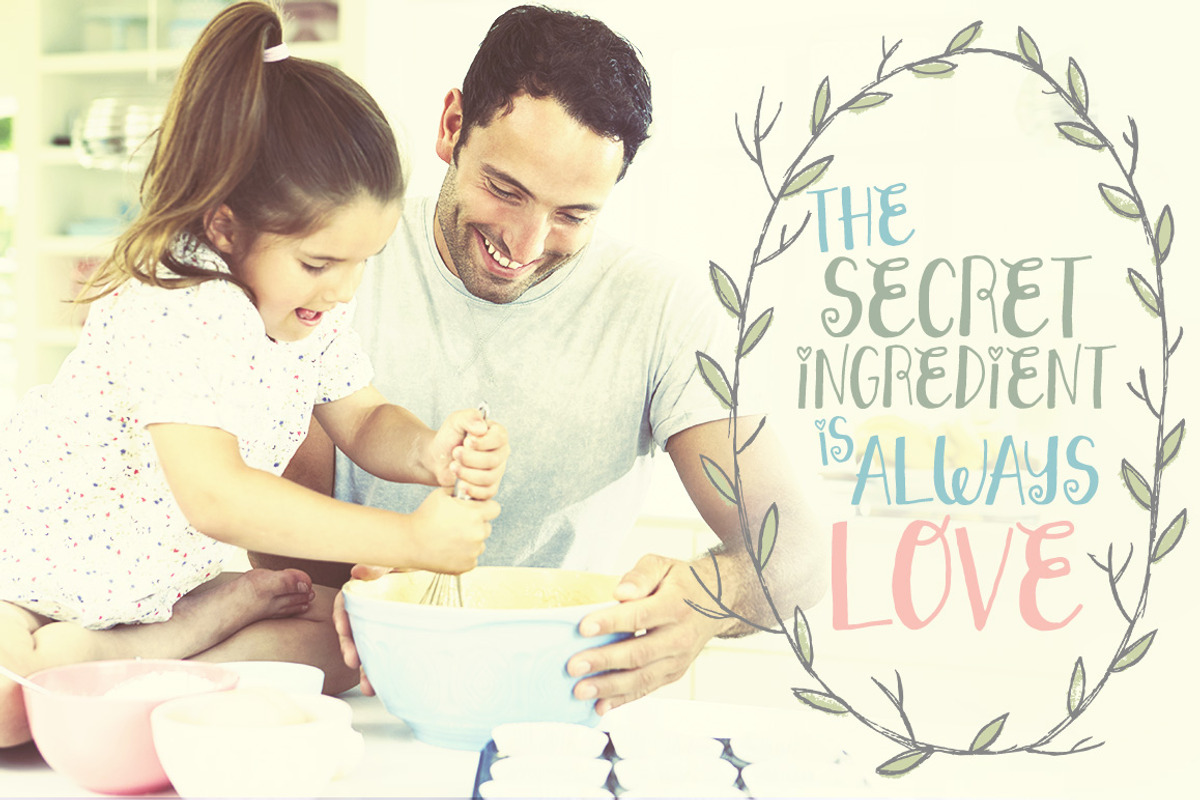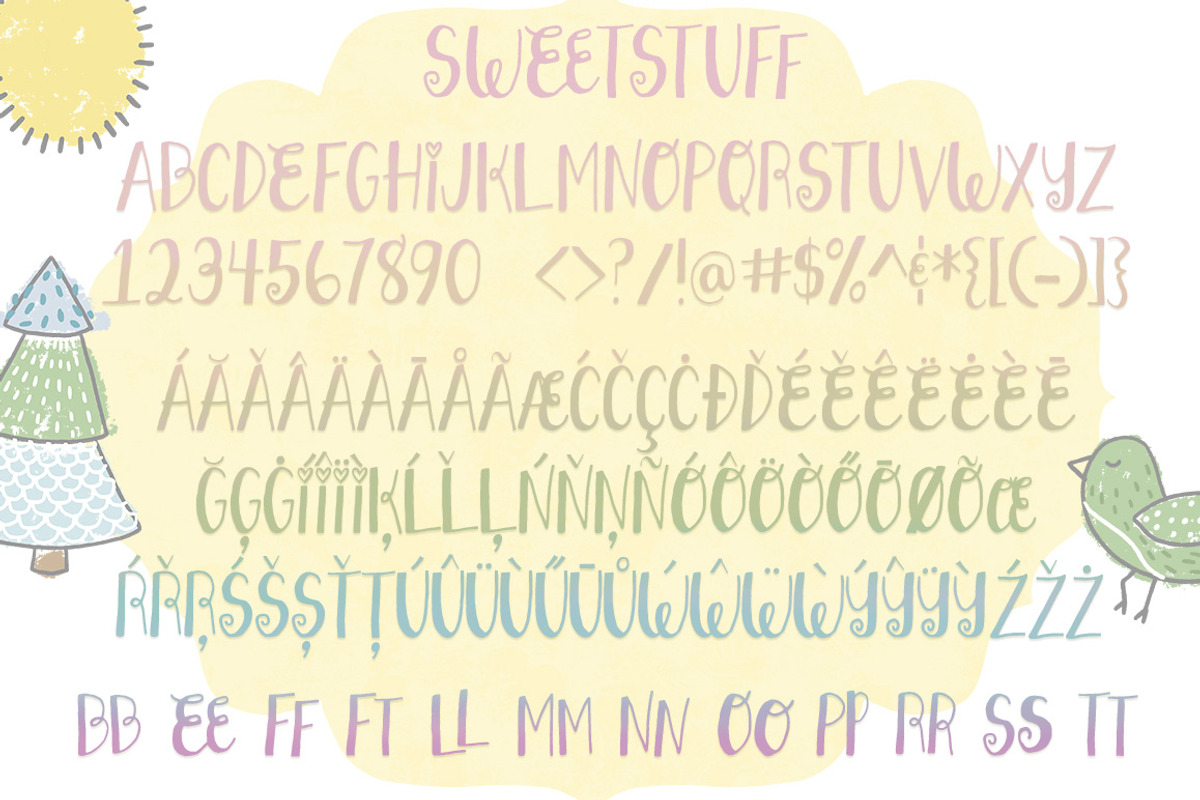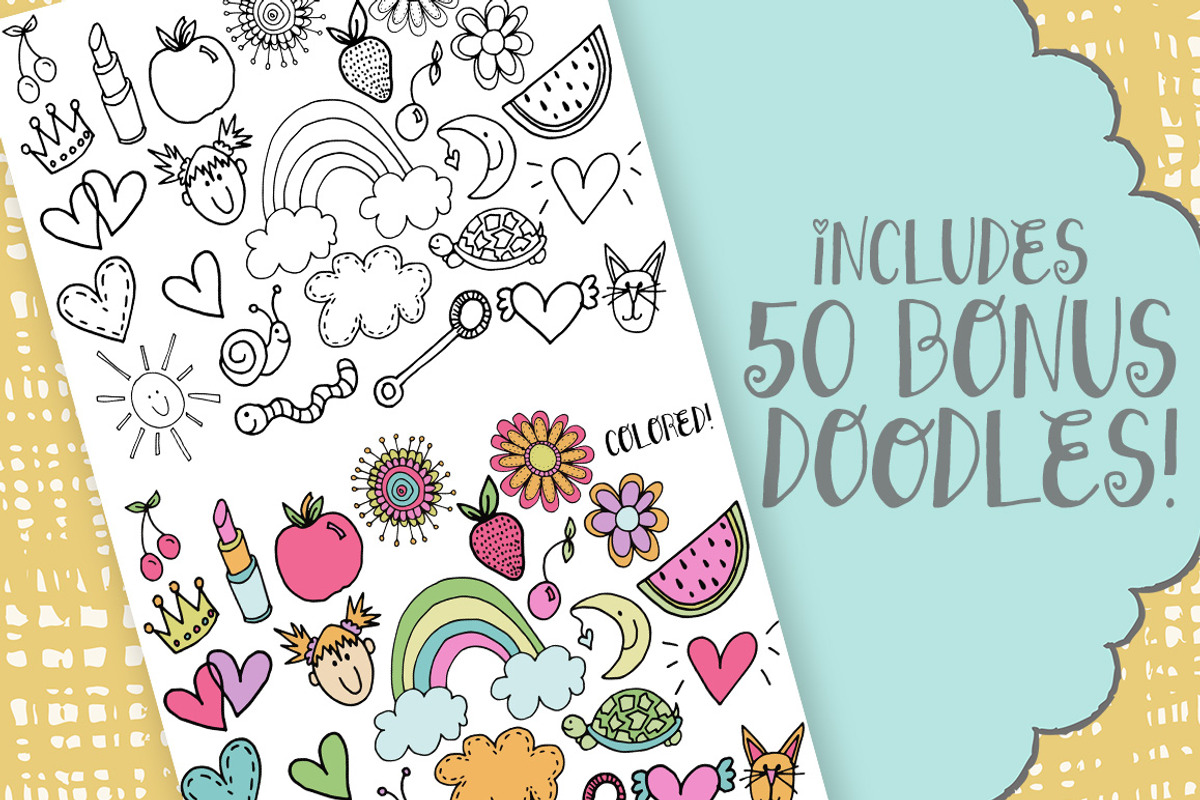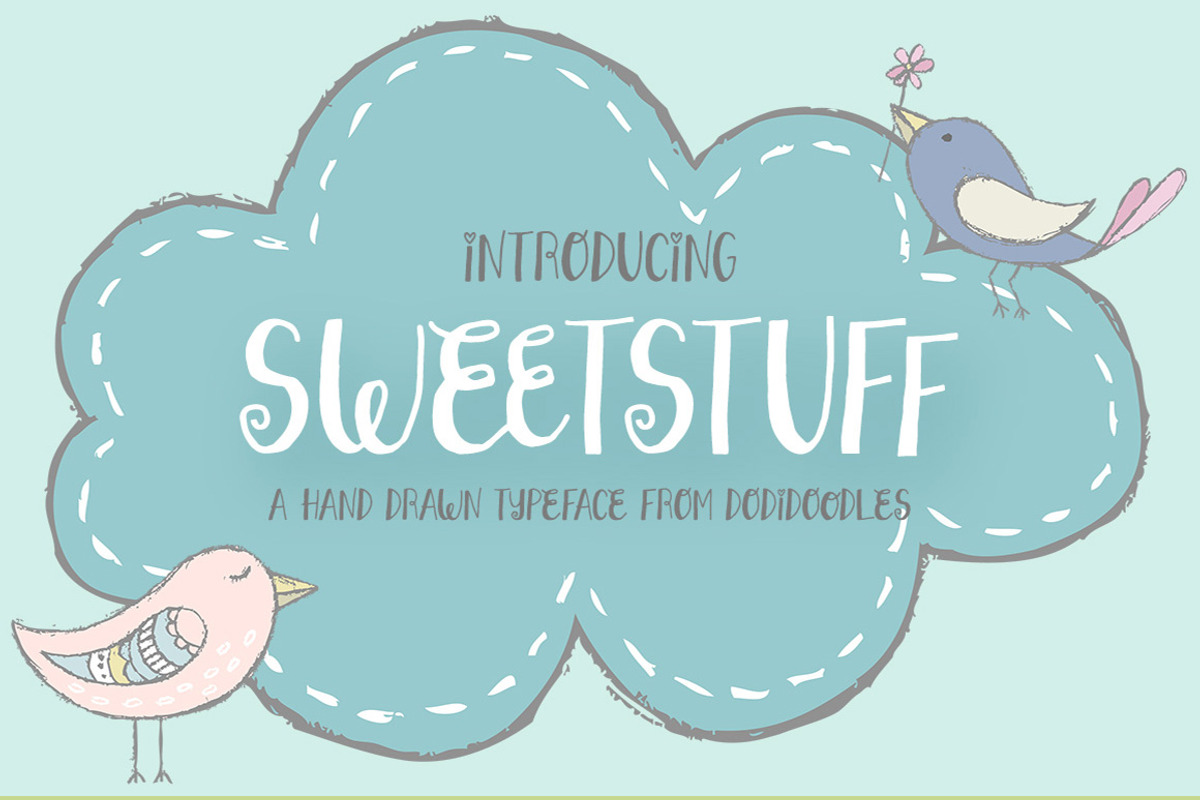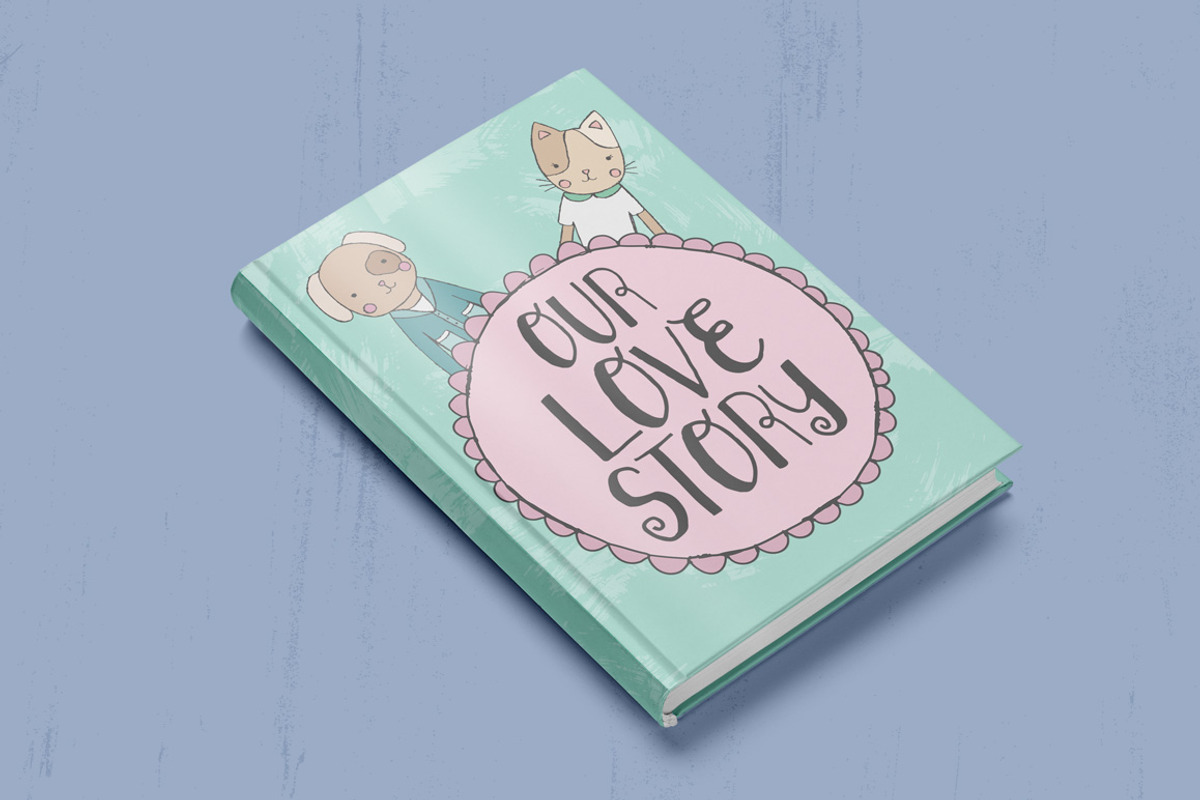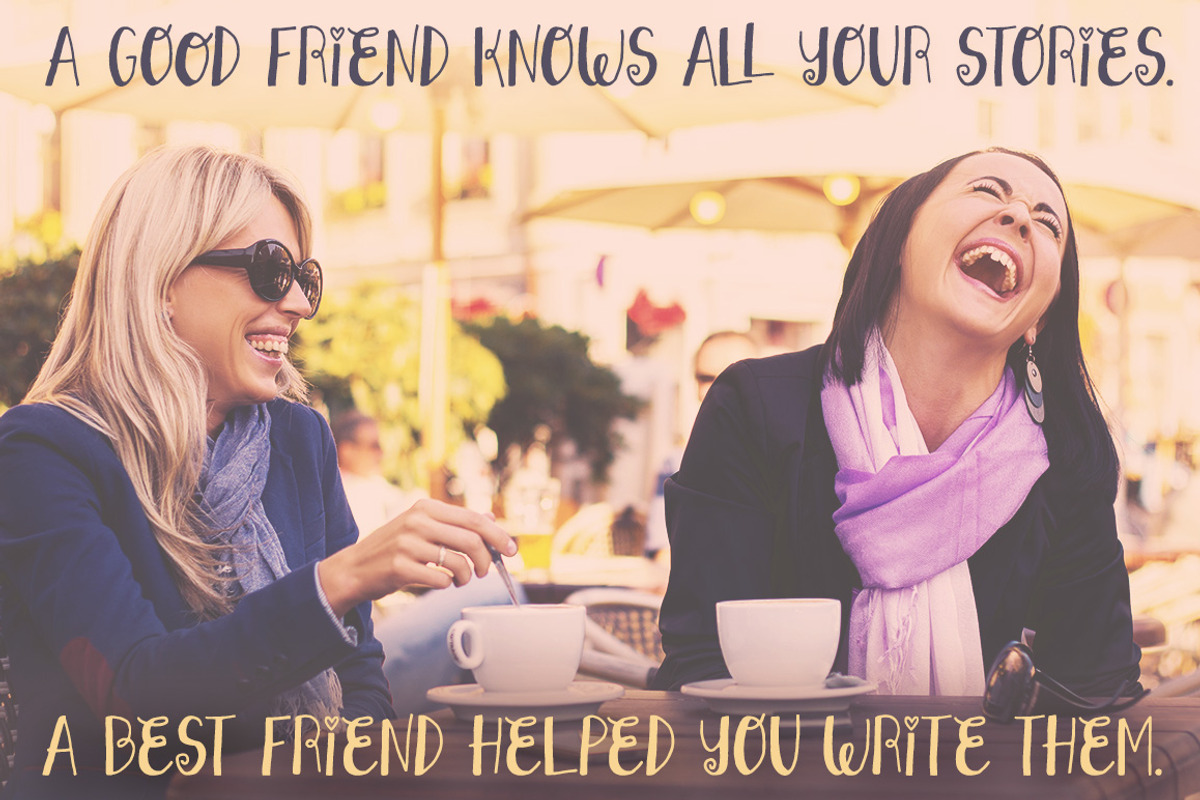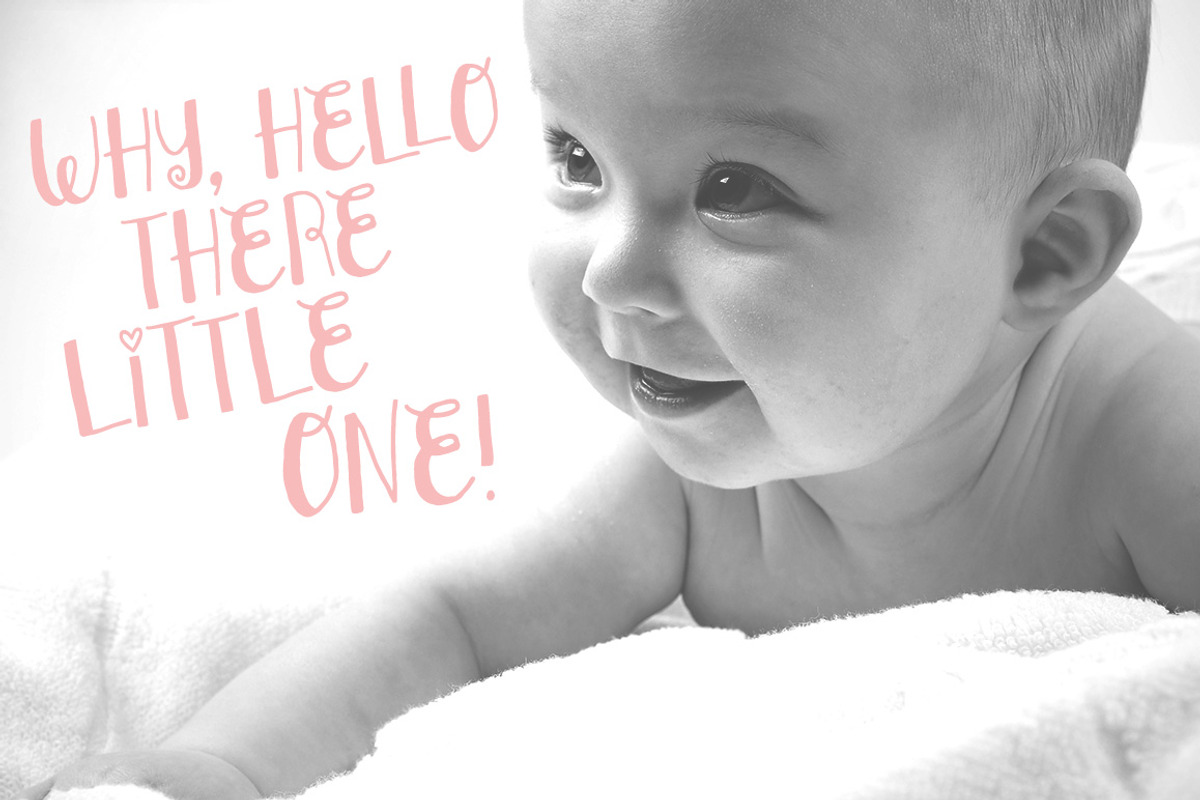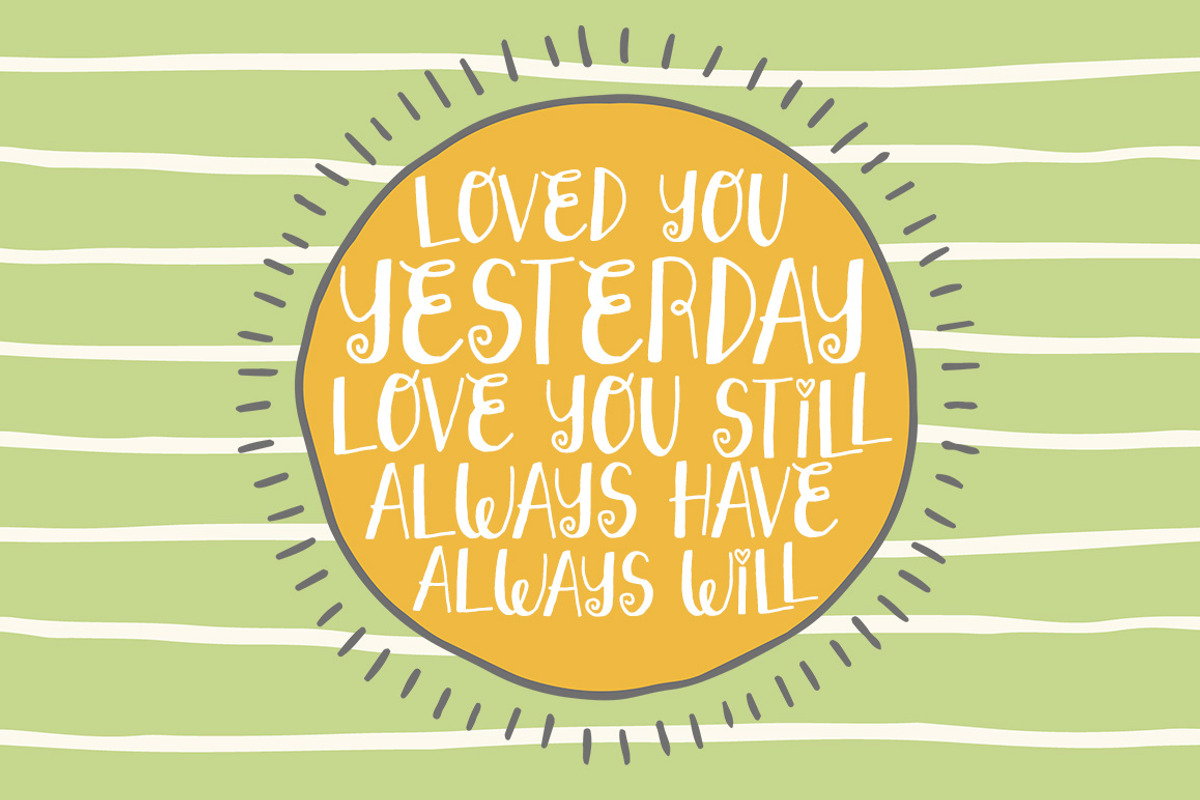
Sweetstuff Typeface + Bonus Doodles
Introducing Sweetstuff-an adorable hand drawn typeface crafted to add love and charm to your design projects!
Sweetstuff has the perfect combination of thin and thick lines paired with occasional curls. It even has a little extra love with a heart-dotted "i" that fits right into the typeface without overwhelming it!
Be sure click on the listing picture and see the full range of language support and ligatures Sweetstuff offers in it's OTF format! (Sweetstuff also contains international currency symbols not displayed in ad pics).